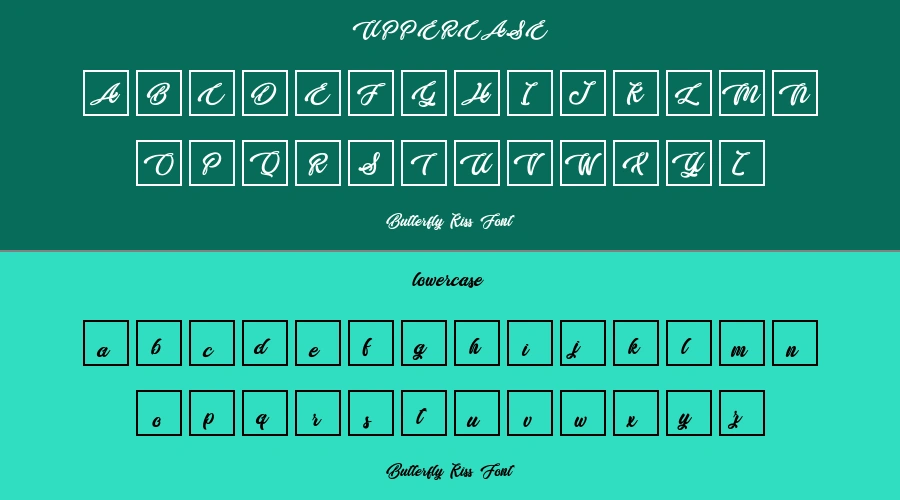
About Butterfly Kiss Font
Butterfly Kiss Font stands out for its distinctive combination of rounded corners and integrity. Ideal for presentation decks, it provides the precision and ceremonial suitability that professional projects demand. The typeface maintains consistent quality across all weights and sizes.
Key features include refined fluid connections and practical isolated forms, enhancing typographic expression. In technical diagrams applications, Butterfly Kiss Font demonstrates exceptional archive stability. The stroke modulation and market positioning contribute to its distinctive character and professional appeal.